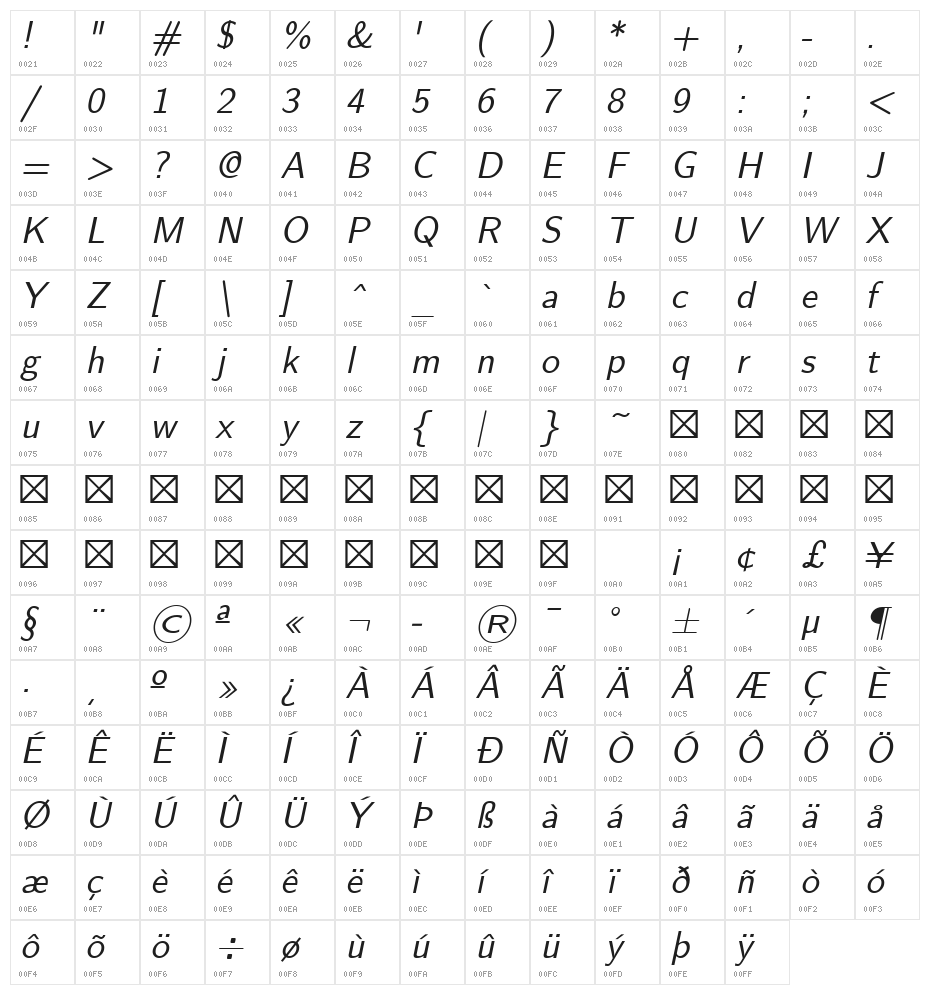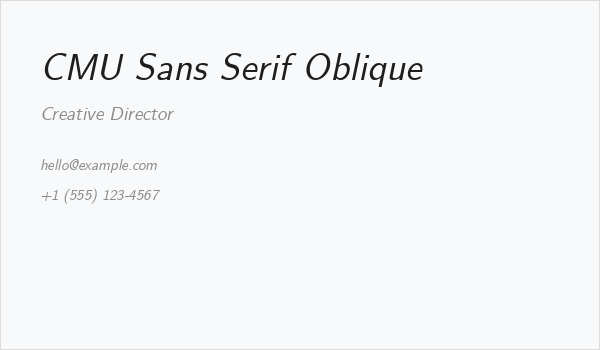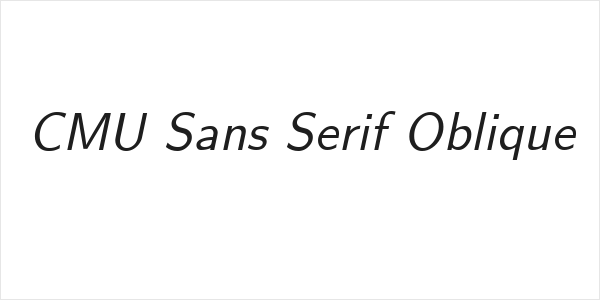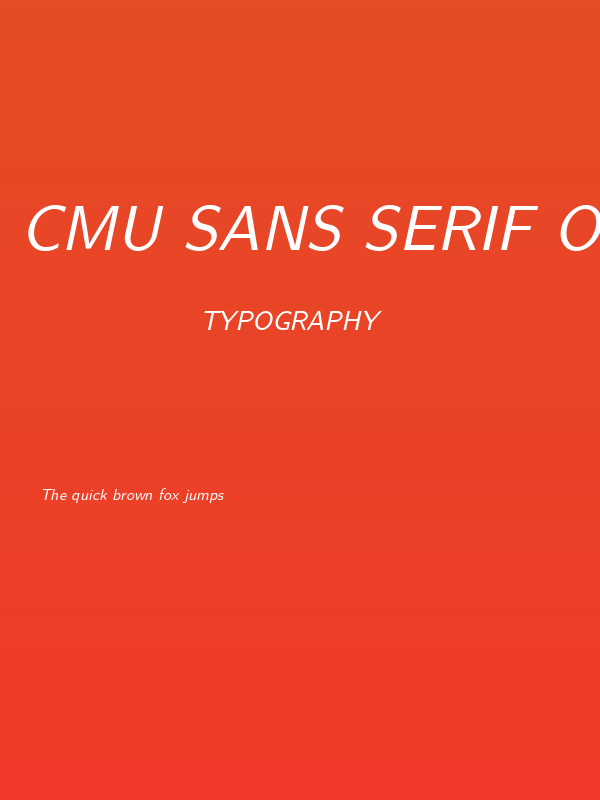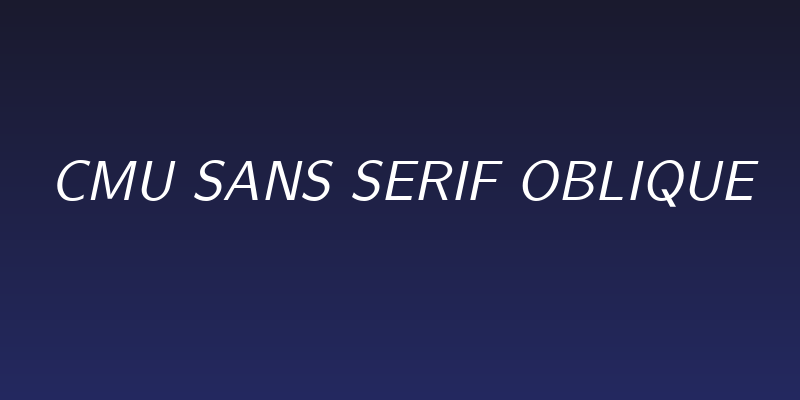
CMU Sans Serif Oblique Font
CMU Sans Serif Oblique Description
This font exhibits a clean and modern sans-serif style with an oblique slant, giving it a dynamic and forward-leaning appearance. The characters are well-proportioned with a consistent stroke width, providing a sleek and professional look. The uppercase letters are bold and assertive, while the lowercase letters maintain a smooth and approachable feel. The numerals are clear and easy to read, making them suitable for various applications. Special characters are well-integrated, maintaining the overall aesthetic of the font. This font is versatile, suitable for both digital and print media, and can be used in a variety of design projects.
Proposed ProjectsIdeal for branding, advertising, web design, and editorial layouts.